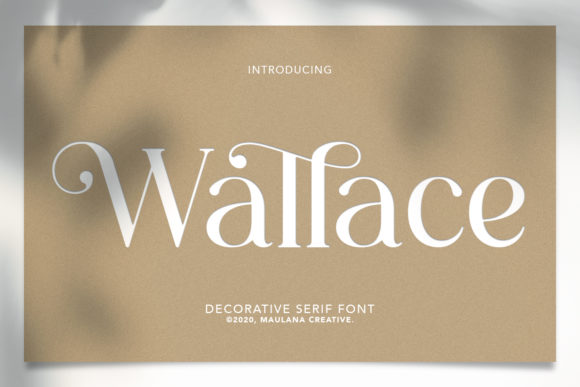
Feast your eyes on Wallace Font, a dazzling display font brimming with charisma and playfulness. This masterpiece from the font foundry of Maulana Creative boasts an irresistible combination of elegant serifs and enchanting ligatures. Prepare to be mesmerized as Wallace's meticulously crafted letterforms dance across your designs, leaving an indelible mark of beauty and distinction.
Unleash your creativity and let Wallace's versatile nature take center stage. Whether you're crafting captivating YouTube channel names, designing eye-catching posters, or adding a touch of whimsy to your social media posts, Wallace rises to the occasion with effortless grace. Its ability to effortlessly adapt to various design styles makes it a true gem in the world of typography.
Imagine your YouTube channel adorned with the captivating charm of Wallace Font. Its playful personality will draw viewers in, enticing them to embark on a visual journey that seamlessly blends entertainment and information. Let Wallace's enchanting serifs and delightful ligatures dance across your channel name, creating an unforgettable first impression that leaves a lasting impact.
Dive into the boundless possibilities that Wallace Font offers. Its versatility knows no bounds, making it the perfect choice for crafting logos that exude professionalism, designing brochures that radiate elegance, or creating social media posts that spark engagement and conversation. With Wallace as your typographic companion, you'll effortlessly elevate your designs to new heights of creativity and sophistication.